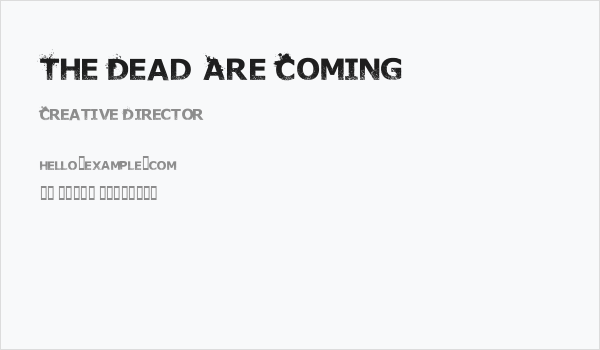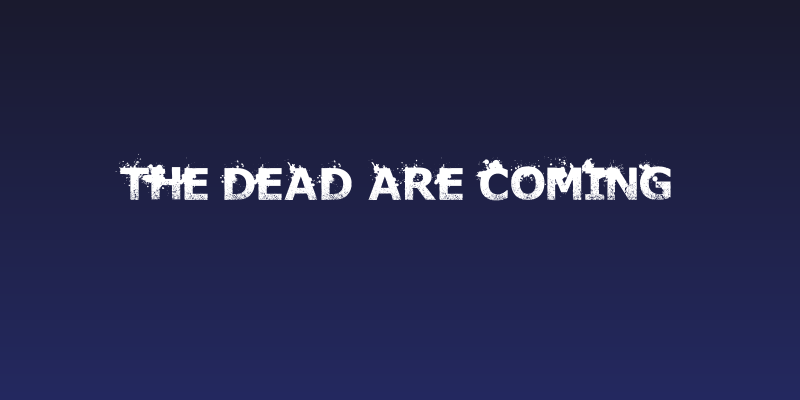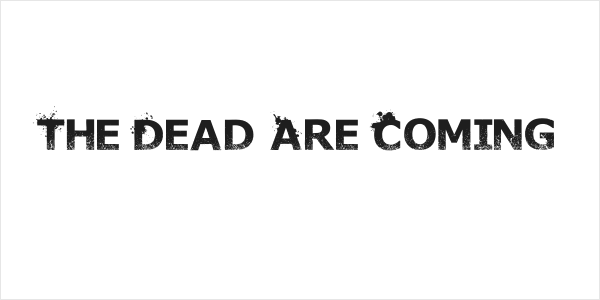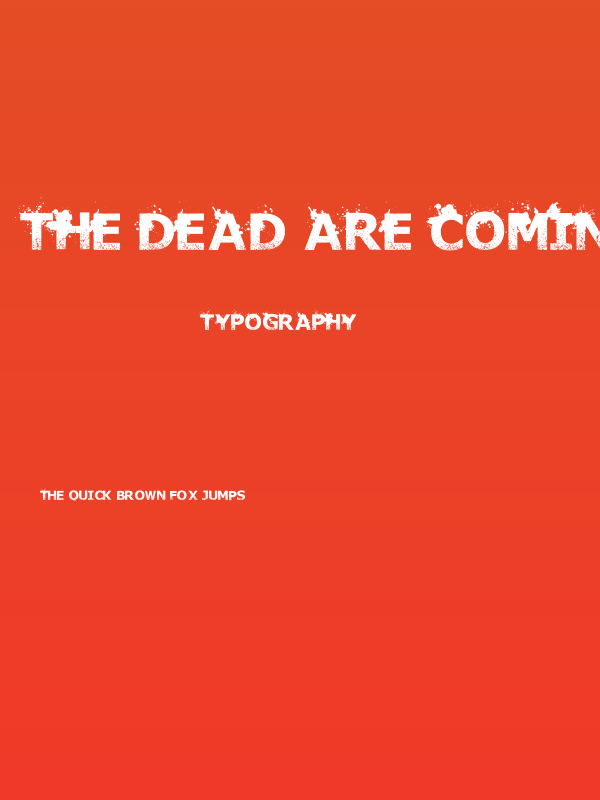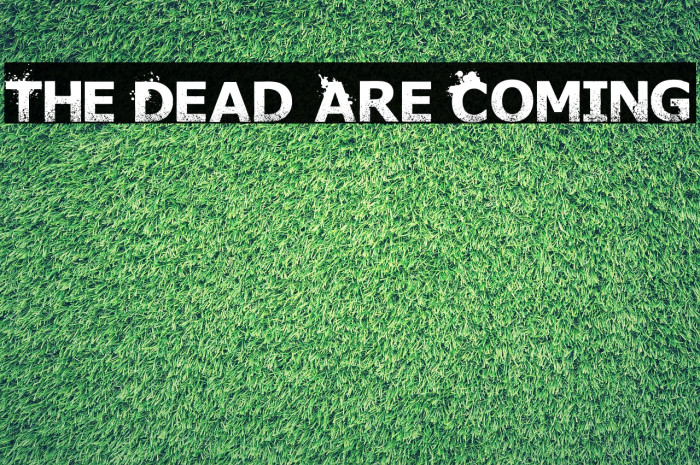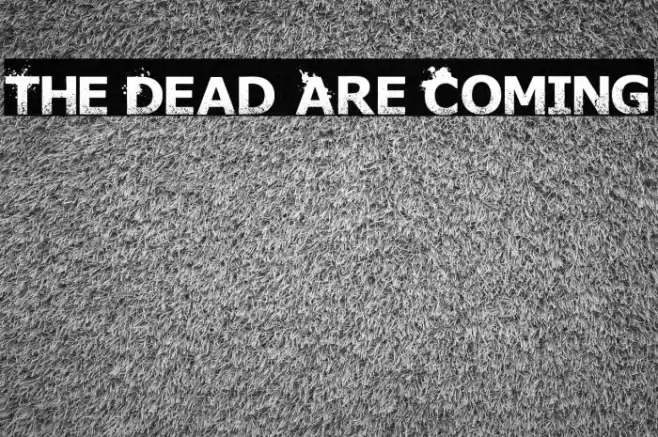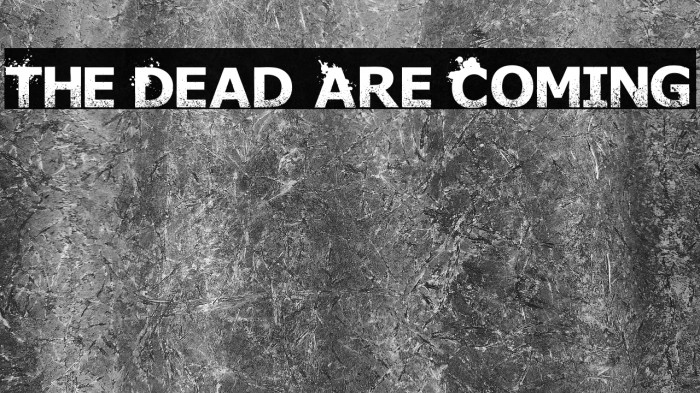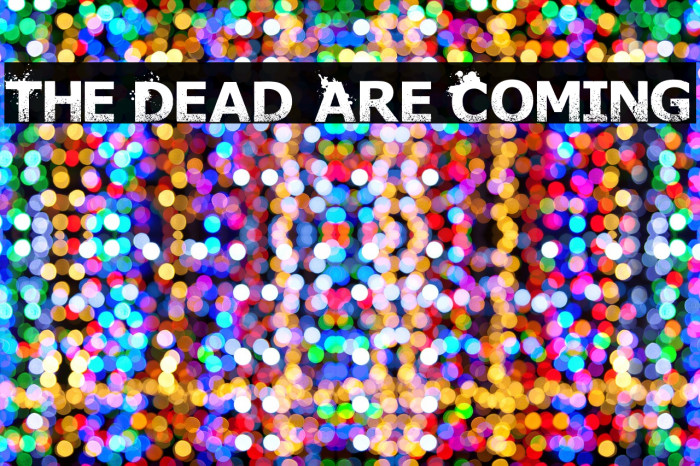
The Dead Are Coming Font
The Dead Are Coming Description
This font features a bold, distressed style with a grunge texture that gives it a rugged and edgy appearance. The uppercase letters are heavily textured, creating a sense of decay or erosion, which adds to its dramatic and impactful look. The font is designed to capture attention and convey a sense of urgency or intensity, making it suitable for themes related to horror, mystery, or post-apocalyptic settings. The characters are evenly spaced, ensuring readability despite the heavy texture. The overall style is decorative and modern, with a unique twist that sets it apart from traditional fonts.
| Overall Style | Modern, Decorative |
| Proposed Projects | Ideal for horror movie posters, video game titles, Halloween event flyers, and any project requiring a gritty, intense aesthetic. |